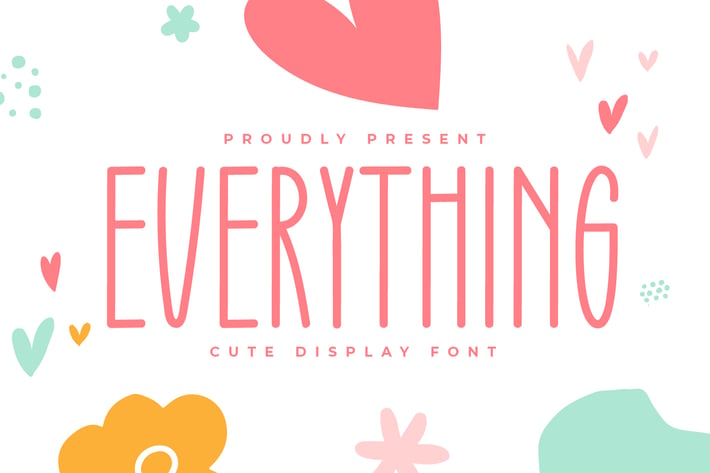
Everything - Cute Display Font
Introducing Everything - Cute Display Font
Everything is a cute, thin and tall handwritten font. No matter the topic, this font will be an incredibly asset to your fonts’ library, as it has the potential to elevate any creation.